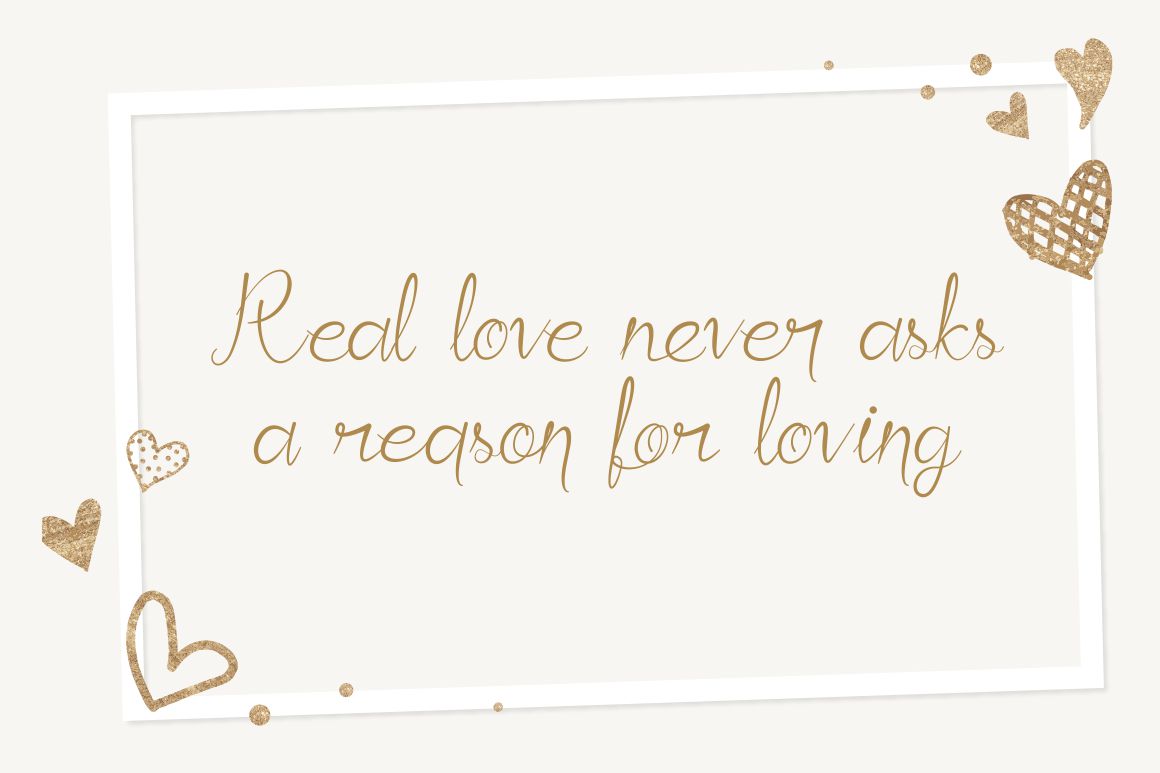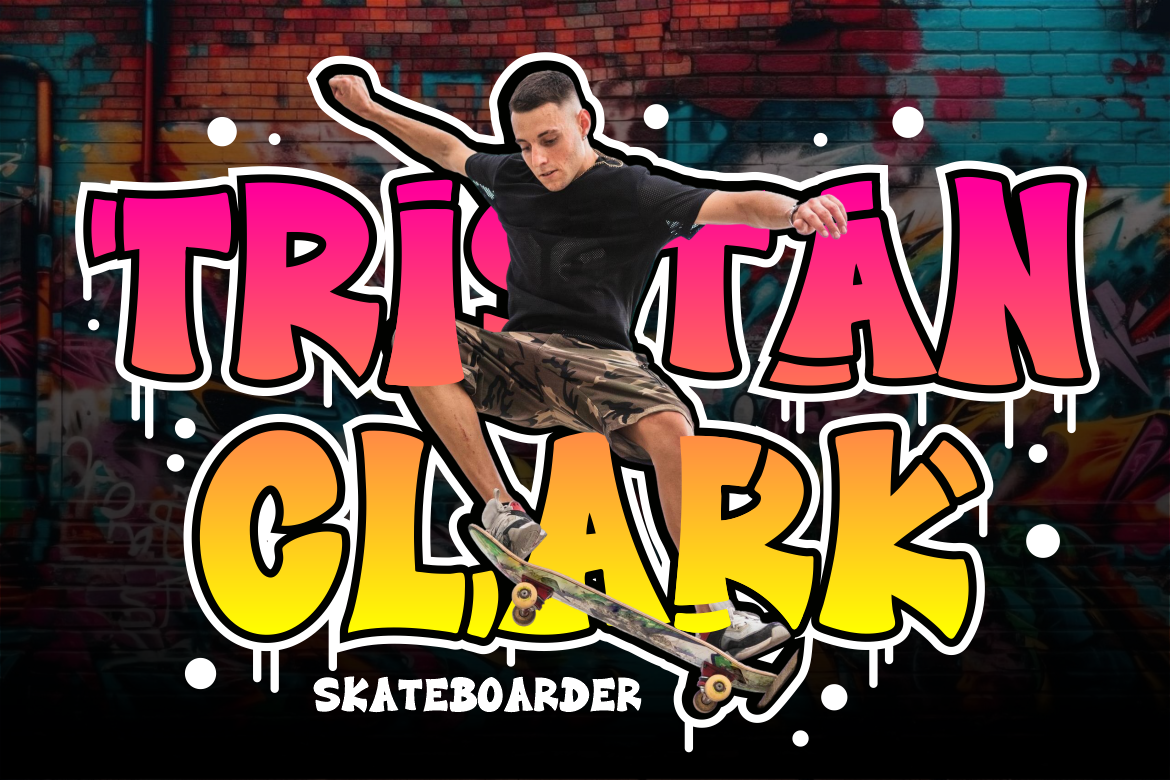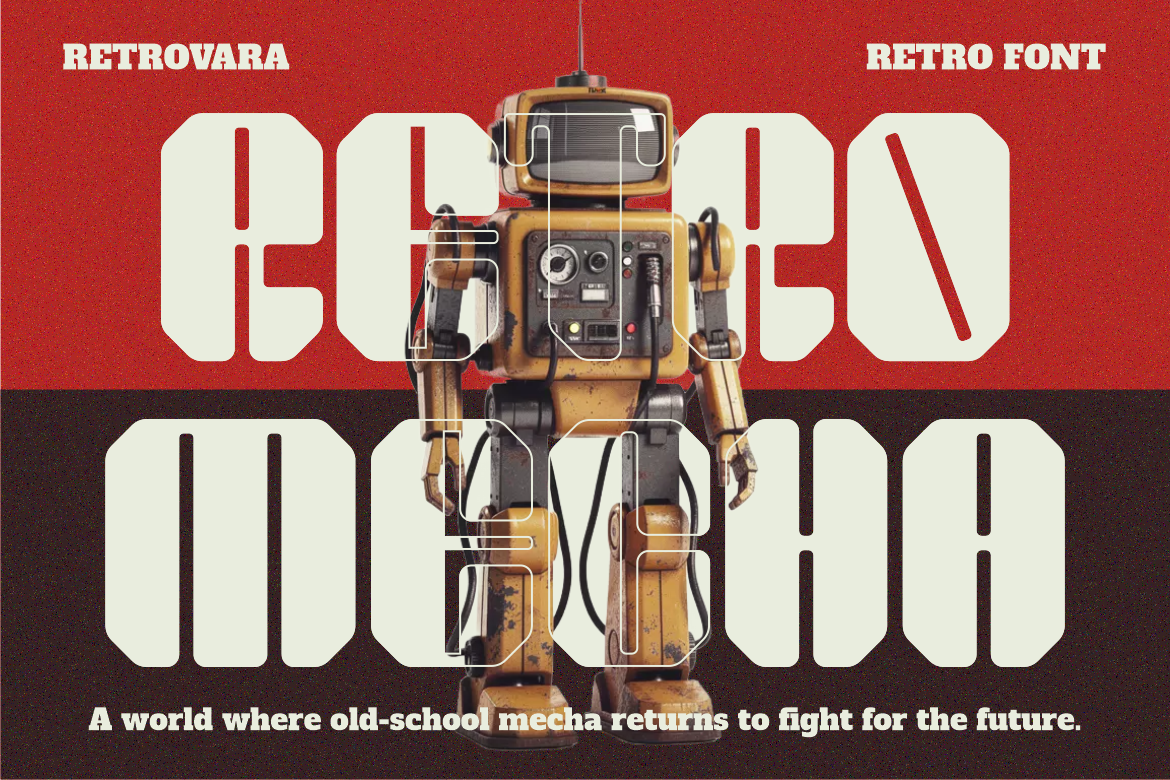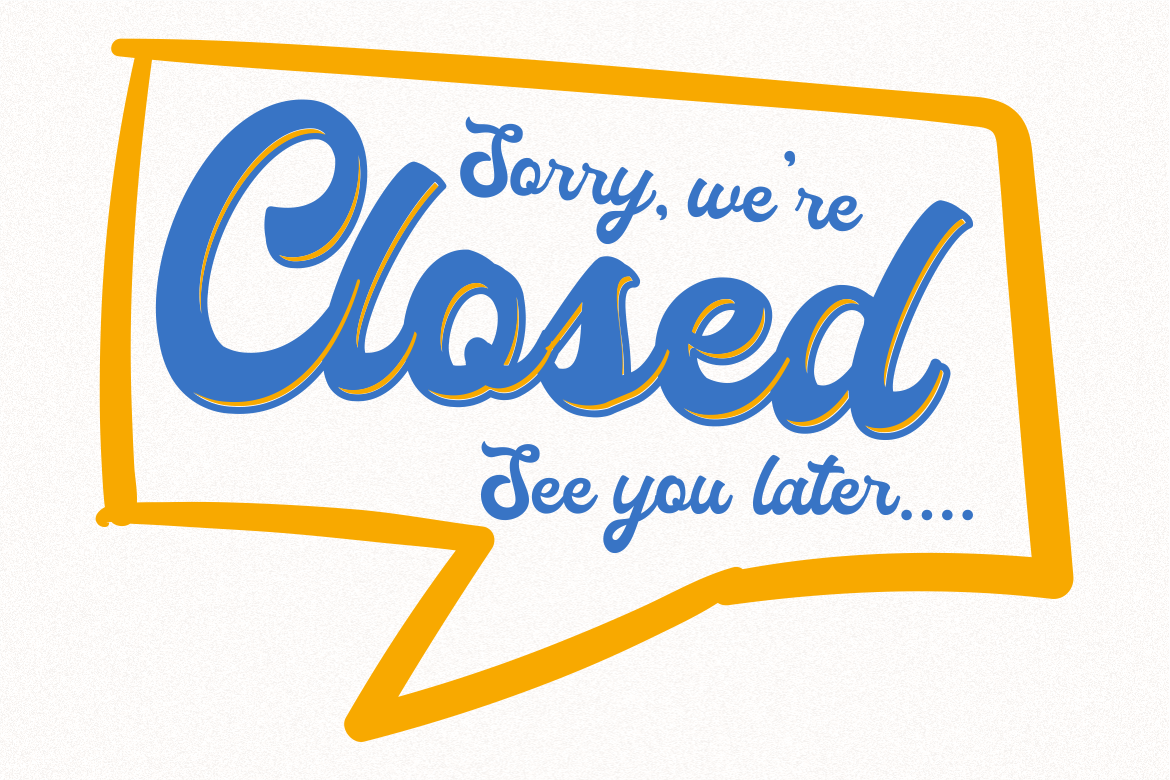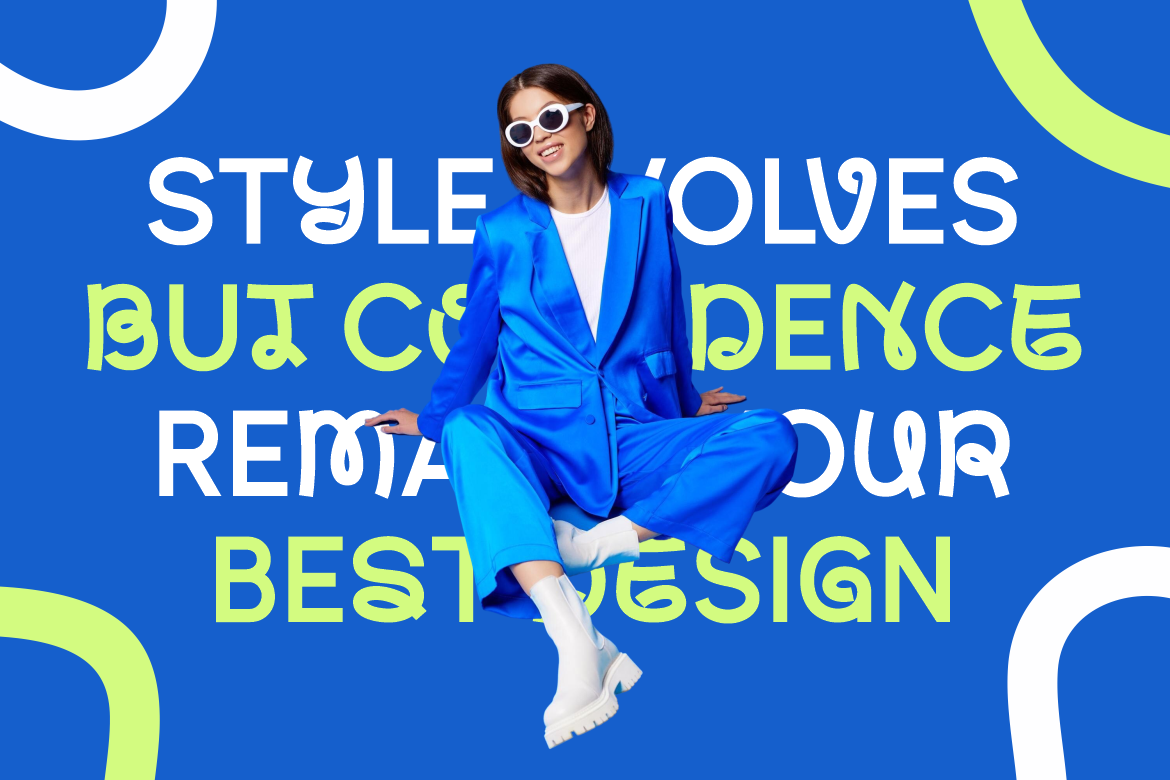
Premium Font Collections: A Smart Investment for Modern Designers
In today’s fast-paced creative industry, designers are expected to work quickly while maintaining originality and professional quality. Visual identity plays a critical role in branding, marketing, and digital communication, and typography sits at the center of that identity. Fonts are not just tools for displaying text. They shape perception, emotion, and credibility.
This is where premium font collections make a real difference. While free fonts can be useful for learning or small projects, they often come with limitations in quality, variety, and originality. Premium fonts, on the other hand, are designed to meet professional standards. They provide refined aesthetics, broader character sets, and a level of exclusivity that elevates design work.
This article explores why premium font collections from Putracetol.com are essential for designers who value speed, originality, and long-term quality. We will also look at how premium fonts support stronger branding, improve workflow efficiency, and help creative professionals stand out in competitive markets.
Why Premium Fonts Matter in Modern Design
Typography is one of the first elements audiences notice in a design. Whether it is a logo, website, packaging, or advertisement, fonts communicate tone before a single word is read. Premium fonts give designers greater control over that communication.
Accelerating the Design Process
One of the most practical benefits of premium fonts is speed. Professional designers often work under tight deadlines, and searching endlessly through free font libraries can slow projects down.
Premium fonts help accelerate the design process because:
• They are created with specific design purposes in mind
• Categories and styles are more focused
• Quality is consistent across the collection
Instead of testing dozens of unsuitable fonts, designers can quickly find the right typeface and move forward with confidence.
Differentiating Your Work
Free fonts are widely used. This means many designs end up looking similar, even when the concept is strong. Premium font collections solve this problem by offering exclusivity.
Premium fonts:
• Are less commonly used
• Help brands stand out visually
• Reduce the risk of generic-looking designs
When a brand uses a unique font, it becomes easier for audiences to recognize and remember it.
Professional Quality and Refined Details
Premium fonts are built with attention to detail. Every curve, stroke, and spacing decision is intentional. This level of craftsmanship directly impacts how professional a design feels.
High-quality characteristics often include:
• Balanced letter proportions
• Clean kerning and spacing
• Smooth curves and consistent weight
• Carefully designed punctuation and symbols
These details may seem subtle, but they significantly improve the overall aesthetic and credibility of a design.
More Character Variations and Glyphs
Another key advantage of premium font collections is variety within a single typeface. Many premium fonts include:
• Multiple weights
• Alternate characters
• Ligatures
• Extended language support
This flexibility allows designers to adapt one font to many uses, from logos and headlines to body text and UI elements, without sacrificing consistency.
Less Common Usage, More Originality
Because premium fonts are not freely available everywhere, they naturally support originality. Brands that invest in premium typography avoid visual repetition across the market.
This originality:
• Strengthens brand identity
• Adds perceived value
• Communicates professionalism and intention
In competitive industries, this difference can be crucial.
Premium Font Collections at Putracetol.com
Putracetol.com offers a wide range of premium font collections designed to support diverse creative needs. Each category is crafted to balance aesthetic appeal with real-world usability.
Serif Fonts
Serif fonts are known for their elegance and timeless appeal. They are often associated with tradition, trust, and sophistication.
Serif fonts from Putracetol.com are ideal for:
• Editorial design
• Luxury branding
• Corporate identities
• Print materials
They offer refined details that elevate classic design styles.
Sans Serif Fonts
Sans serif fonts provide a modern and clean appearance. They are highly versatile and widely used in digital design.
These fonts work well for:
• Websites and apps
• Tech branding
• Minimalist layouts
For designers who want to stand out and maintain high standards, premium fonts are an essential part of the creative process.